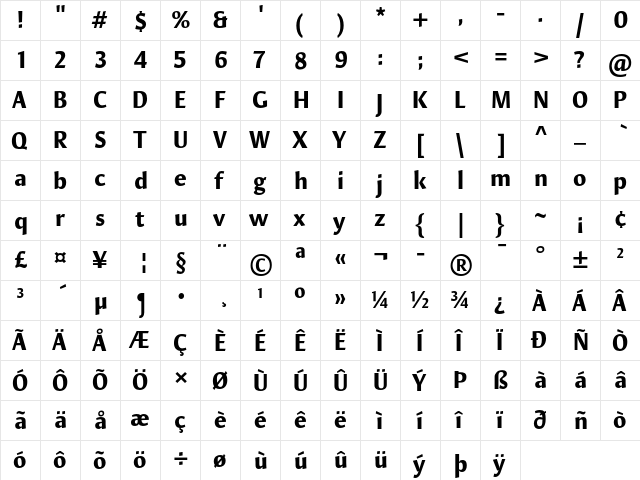
Hildegard LT Std Bold
| Foundry | Linotype GmbH |
| Designer | Jan Sonntag |
Design Context for Hildegard LT Std Typeface
Hildegard LT Std is a composed and adaptable typeface that performs quietly and consistently across a wide range of design contexts. The heavy weight commands attention and anchors typographic hierarchies.